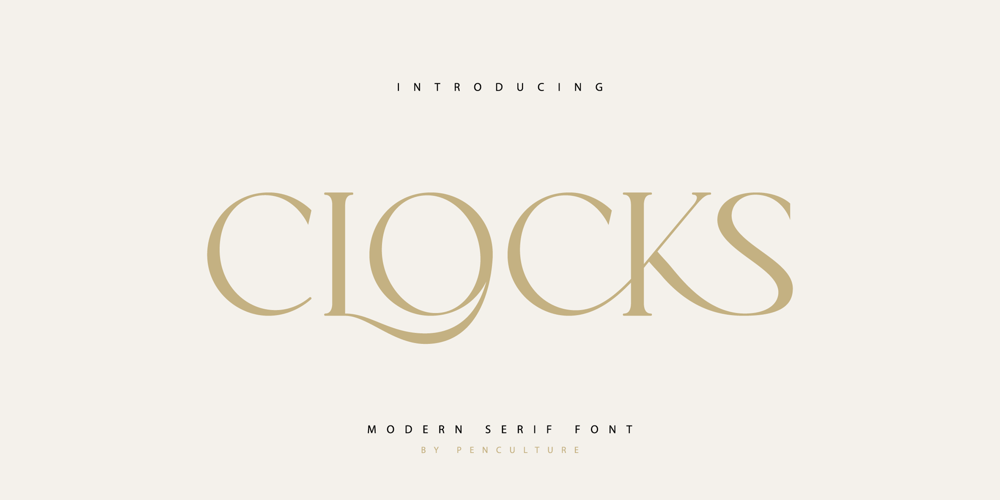
Clocks Font Family was designed by Revo Farsiky and published by Pen Culture. Clocks contains 1 styles and family package options. Introducing Clocks TypefaceClocks is modern and elegant serif font with lovely ligature. this font has authentic shape which is very suitable for various design projects such as branding, logo, fashion design and many others.What inside and what will you get: Uppercase letter Number and punctuation Lovely ligature PUA Encoded I really hope you enjoy it – please do let me know what you think, comments & likes are always hugely welcomed and appreciated. More importantly, please don’t hesitate to drop me a message if you have any issues or queries.Thank you